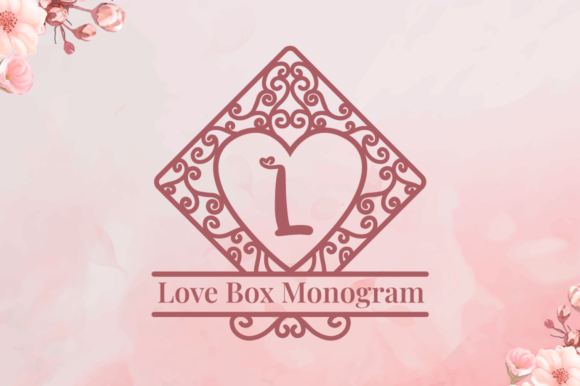
Prepare yourself to be mesmerized by Love Box Monogram, an exquisite decorative font that will ignite your creativity and transform your DIY projects into masterpieces. This captivating font, meticulously crafted by attypestudio, is not just a collection of letters; it's an expression of art that will leave an indelible mark on your designs.
Immerse yourself in the world of Love Box Monogram, where each character dances with grace and elegance, harmonizing perfectly to create a visual symphony. Whether you're a seasoned designer or just starting your creative journey, this font will elevate your projects to new heights.
Envision the possibilities as you effortlessly create personalized t-shirts, mugs, cards, invitations, and more. Love Box Monogram's versatility knows no bounds, making it the perfect choice for any project that demands a touch of sophistication and charm.
With Love Box Monogram, you'll discover a font that's not just beautiful but also incredibly user-friendly. Its smooth flow and effortless readability make it a joy to work with, allowing you to focus on expressing your creativity without any technical hiccups.